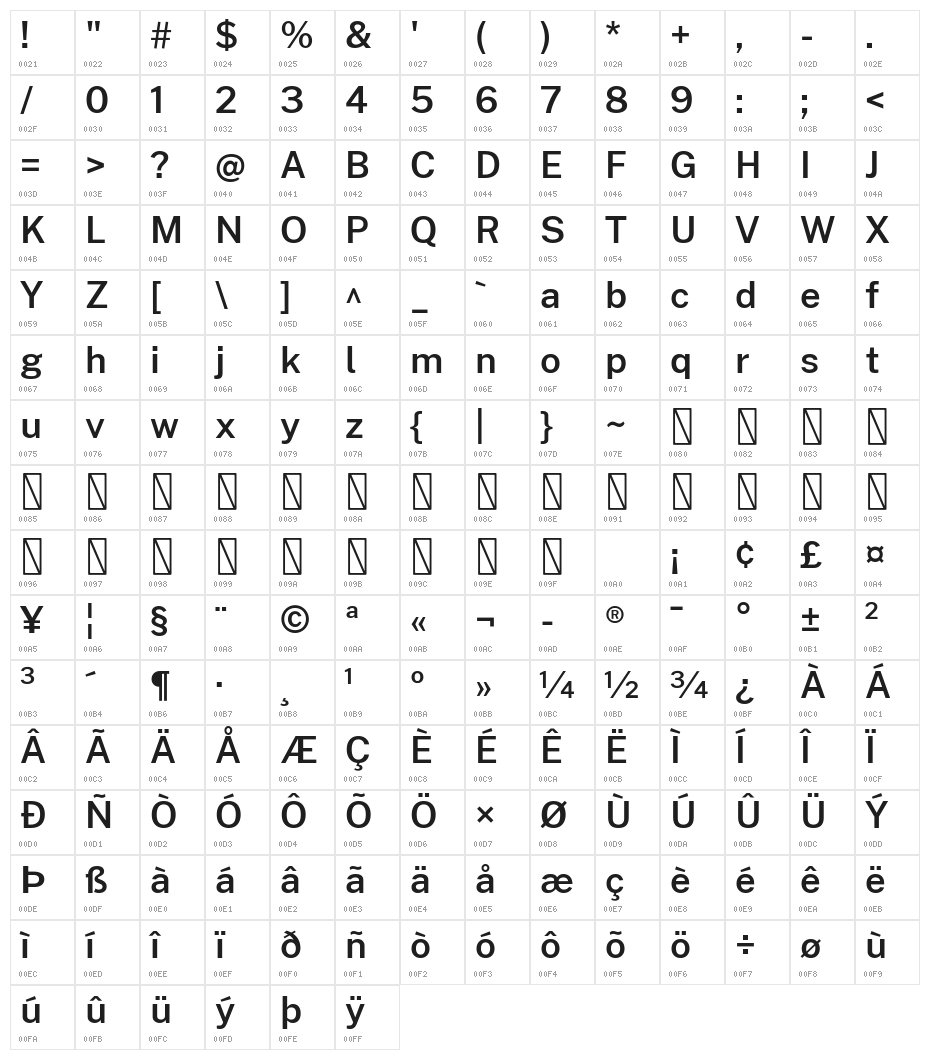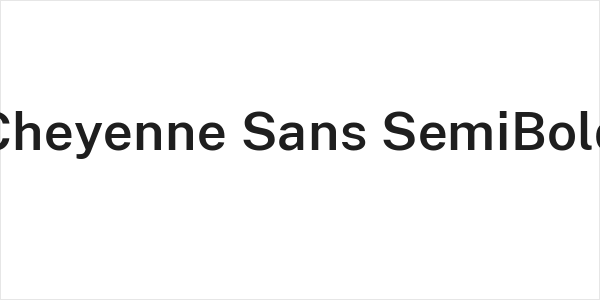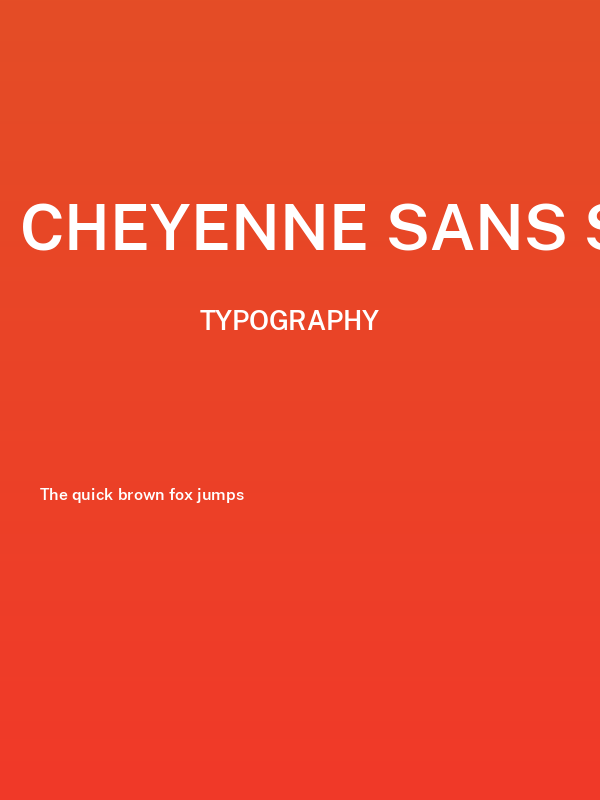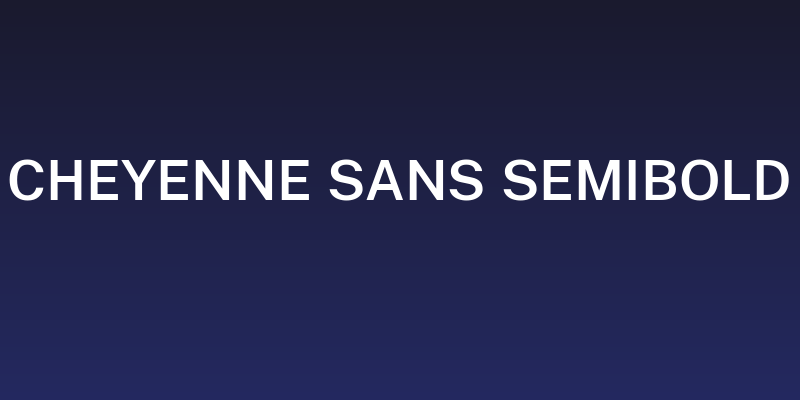
Cheyenne Sans SemiBold Font
Cheyenne Sans SemiBold Description
This typeface features a clean and modern sans-serif design, characterized by its semi-bold weight that provides a strong yet approachable appearance. The letters are crafted with a uniform stroke width, contributing to its contemporary and straightforward aesthetic. The characters exhibit a balanced proportion, ensuring readability across various sizes. The font's geometric structure is evident in its precise curves and straight lines, making it suitable for a wide range of applications. Its simplicity and clarity make it an excellent choice for both digital and print media.
| Proposed Projects | Ideal for branding, web design, advertising, and editorial layouts where clarity and modernity are essential. |